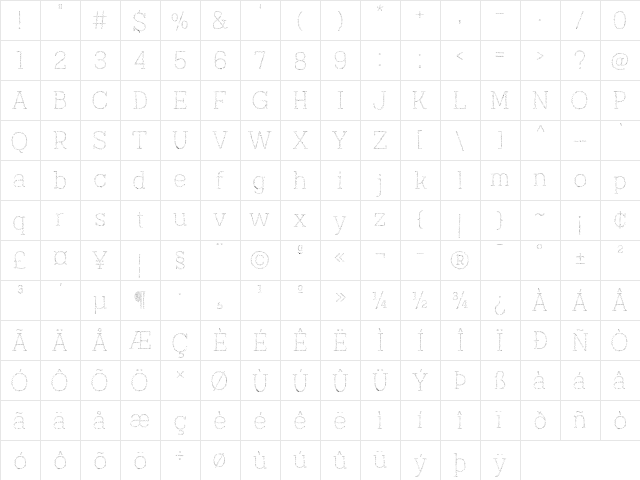
Austral Slab Maplines Thin
Maplines Thin · Julia Martinez Diana, Antipixel Julia Martinez Diana, Antipixel ·
Foundry Julia Martinez Diana, Antipixel
Design Context for Austral Slab Typeface
Austral Slab features prominent, blocky serifs that give it a confident, grounded presence — equally at home in editorial settings and bold branding work. The delicate stroke weight brings airiness and refinement to layouts.
Works well in editorial design, news publishing, impactful branding, and poster typography.
Pro Tip: Try Austral Slab set tight in headlines for a classic editorial feel. Its slab serifs create strong horizontal rhythm that anchors a page layout.